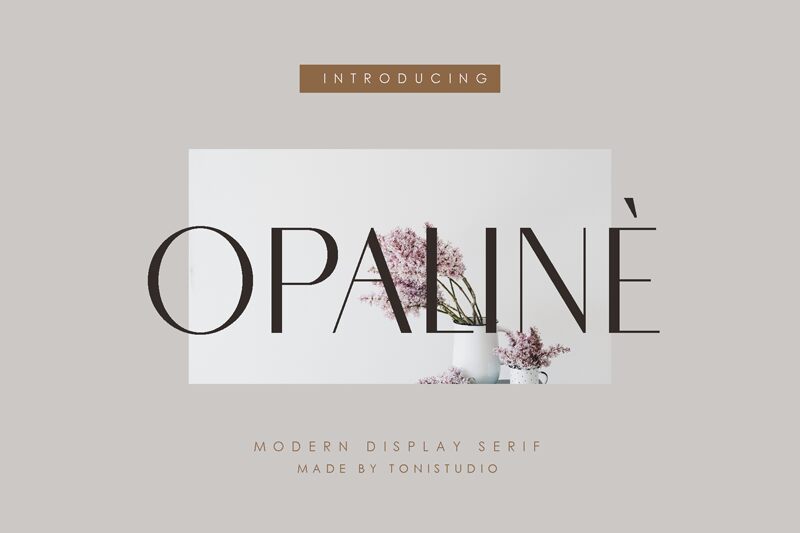
Opaline
Opaline, designed by Toni Studio, is a sleek and modern sans serif font that exudes elegance and sophistication. With its semi-light weight, Opaline strikes the perfect balance between delicacy and legibility. This versatile font is an ideal choice for a wide range of projects including luxury brand logos, fashion magazines, high-end websites, and refined invitations. Its clean lines and subtle curves make it suitable for both print and digital media, ensuring your message stands out with a touch of refined charm. Elevate your designs with Opaline's graceful simplicity and make a lasting impression in any project you undertake.